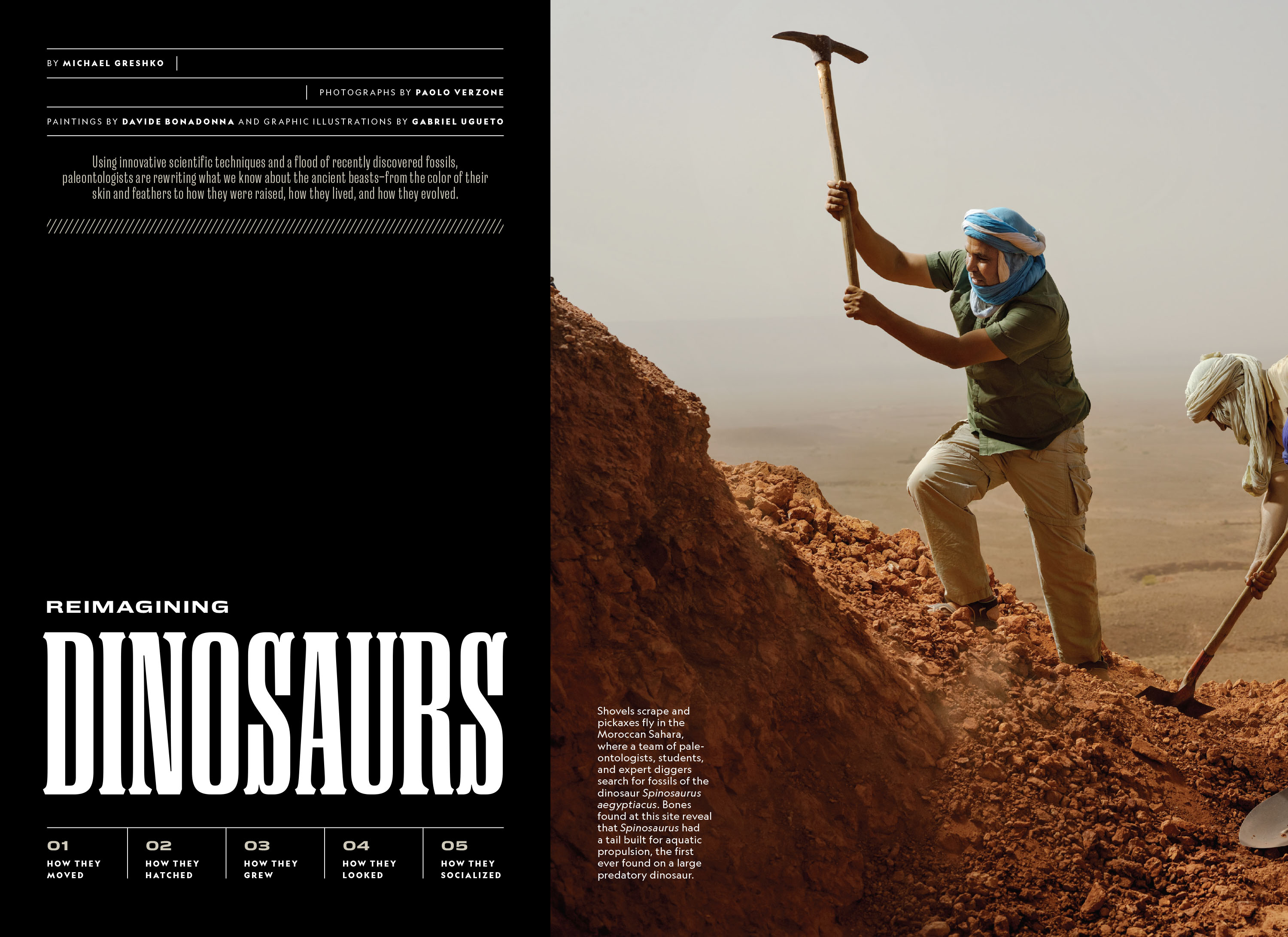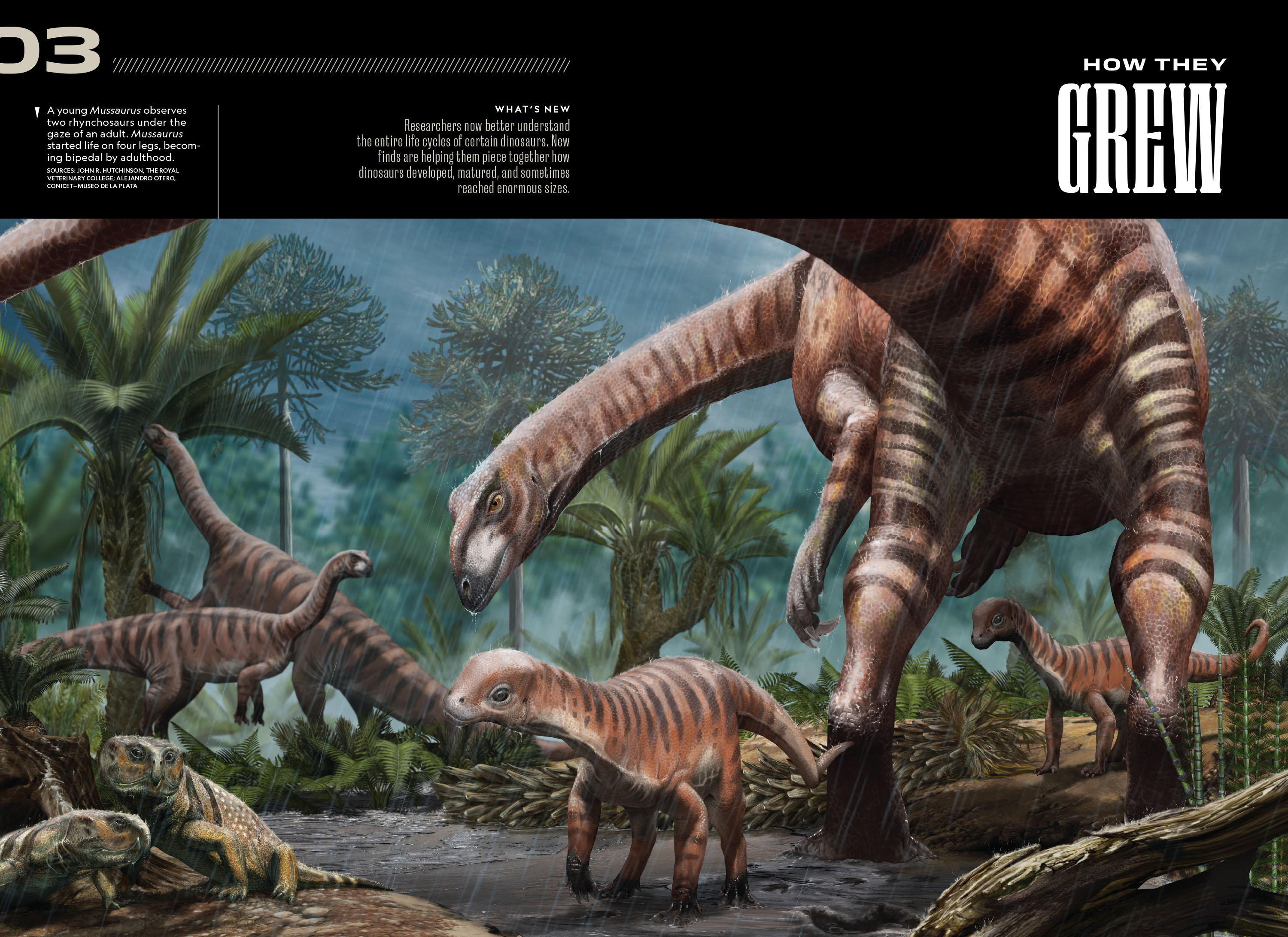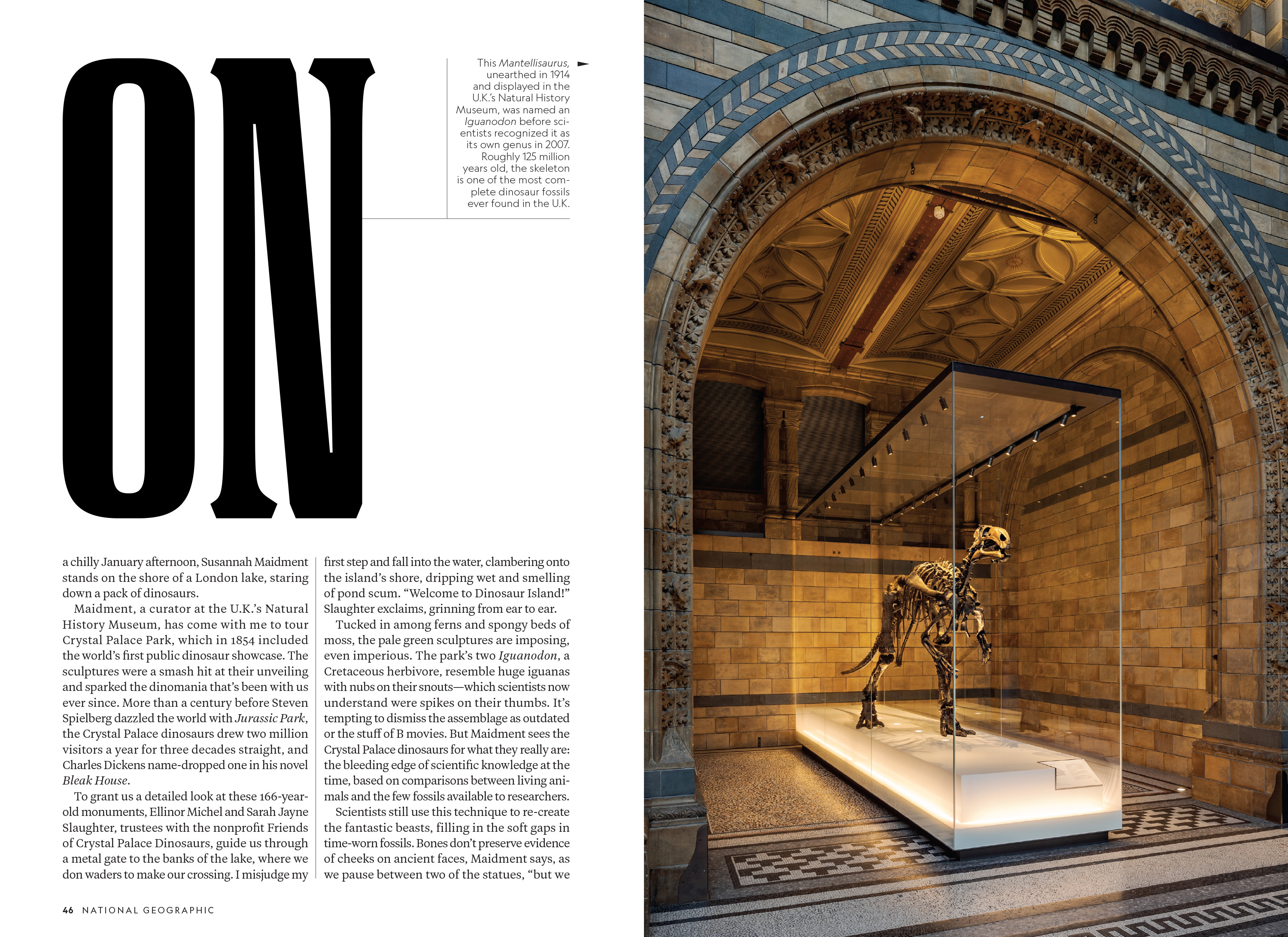
Hannah Tak was leading the design of an issue dedicated to some of the latest science on dinosaurs and asked if I could add something in the classic Tuscan wood type style to the Earle family. Tuscan typefaces follow standard letterform structures, but have odd horns, spikes, plates and other details that make them legible, but unfamiliar. This made the style a great pairing for illustrations of dinosaurs and photos of fossils. The trick in all of this was to tamp down any attributes that could make the letters resemble vintage circus posters, which made heavy use of Tuscan type. I drew several variations in different levels of ornamentation before we found one that Hannah felt looked more like bones than a carnival. This typeface ended up being way more versatile than I thought it would, appearing in many subsequent issues of the magazine.